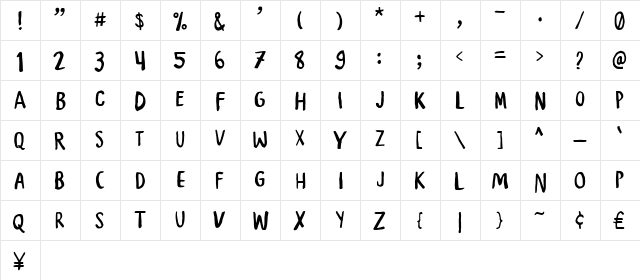
Dale Adventure Regular
| Foundry | Sahirul Iman, Semarang, alexatype |
| Designer | Puguh, Sahirul, Semarang, alexatype |
Design Context for Dale Adventure Typeface
Dale Adventure is a composed and adaptable typeface that performs quietly and consistently across a wide range of design contexts.